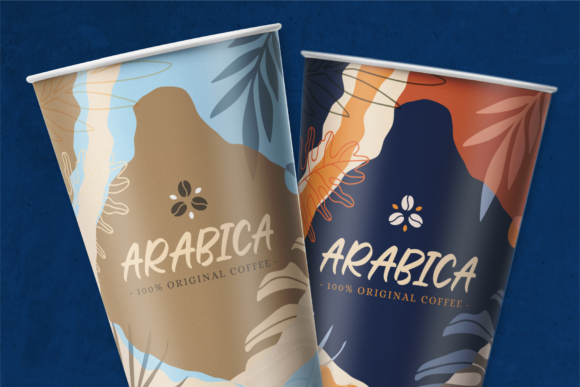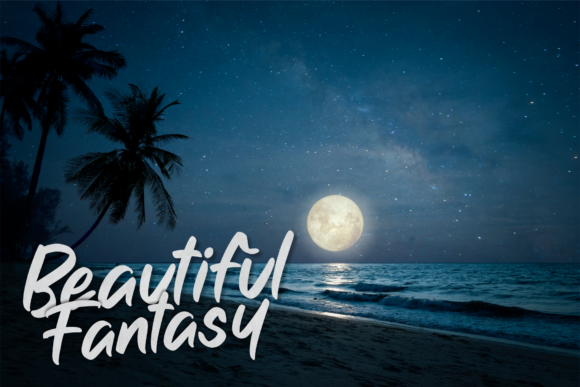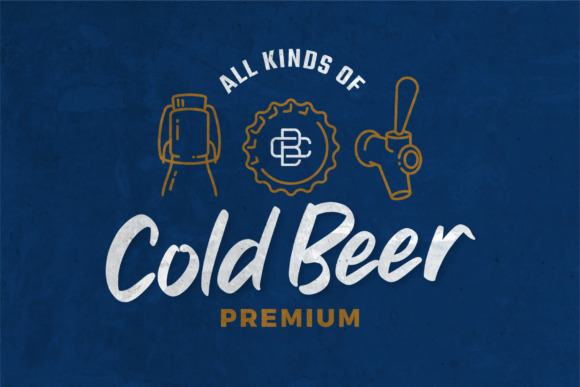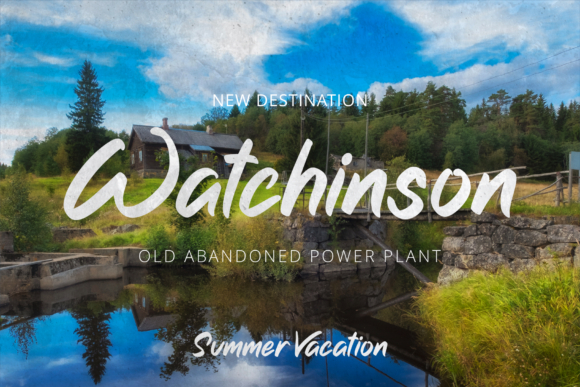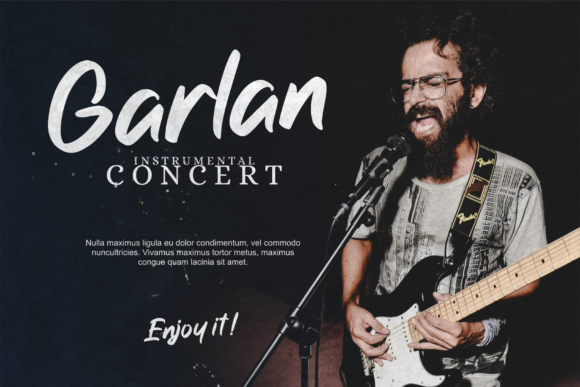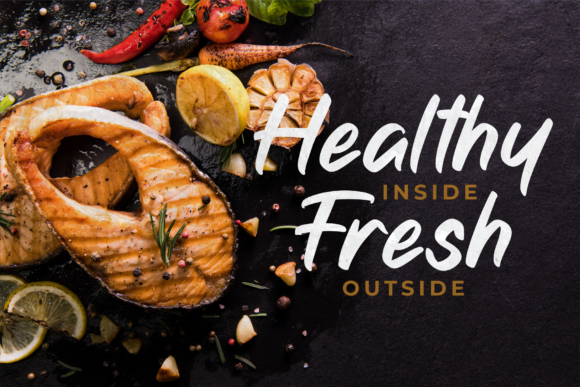
Introduction to Rofaela Font
Have you ever stared at a blank page, trying to conjure up the perfect headline for your creative project? You’ve got a vision, but the words just aren’t flowing. That’s where the Rofaela Font comes in – a vintage styled and flexible handwritten font that’s guaranteed to give your designs a stylish touch.
Whether you’re working on a high-quality logo, a free download, or just a simple design concept, the Rofaela Font is an invaluable resource for designers. Its transparent background and dynamic feel make it perfect for adding a nostalgic character to your work, while its confident and strong reading style ensures your message gets across.
With the Rofaela Font, you’ll be able to add a personal touch to your creative projects, making them stand out from the crowd. It’s a game-changer for designers who want to elevate their designs and leave a lasting impression.
Key Features of Rofaela Font
- High-quality, elegant script font with a transparent background, ideal for creative projects and design resources.
- Designed to be versatile, Rofaela Font is perfect for use in a variety of creative projects, from wedding invitations to branding materials.
- Features a high-resolution design, ensuring crisp and clear text display, even at large sizes.
- Includes a comprehensive character set, including Latin and Cyrillic scripts, making it suitable for international projects.
- Unique characteristics include a flowing, cursive style and a range of stylistic alternates, allowing for added creativity and customization.
Honest Review: Rofaela Font
I recently stumbled upon the Rofaela Font while searching for a high-quality design resource for my creative project. I must say, I was impressed with the overall quality and versatility of this font.
Here are some things that work well: ✨ The font’s elegant design makes it perfect for both digital and print-based projects. ✨ The high-quality vector graphics ensure seamless scaling, and the transparent background feature allows for easy integration with any design. ✨ The font’s comprehensive character set makes it suitable for a wide range of languages.
- High-quality design and vector graphics
- Comprehensive character set
Tips for Getting the Most Out of Rofaela Font
Rofaela Font is perfect for a variety of creative projects, including logos, business cards, and brochures. It’s also great for use in presentations, such as PowerPoint or Google Slides, to add a professional touch.